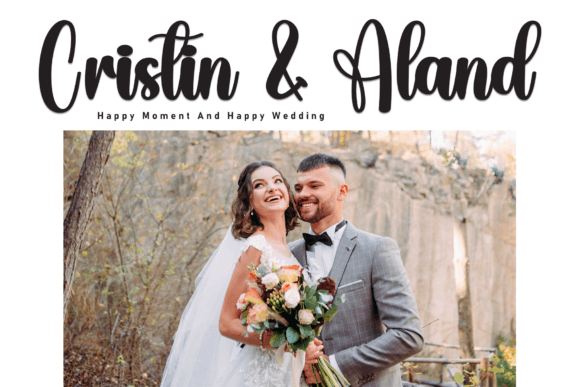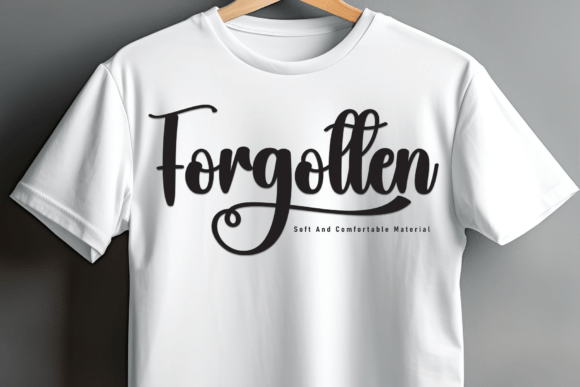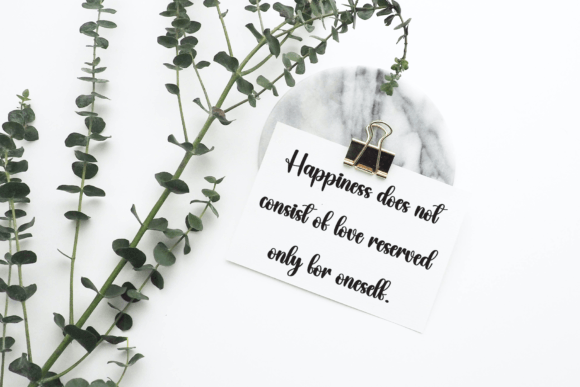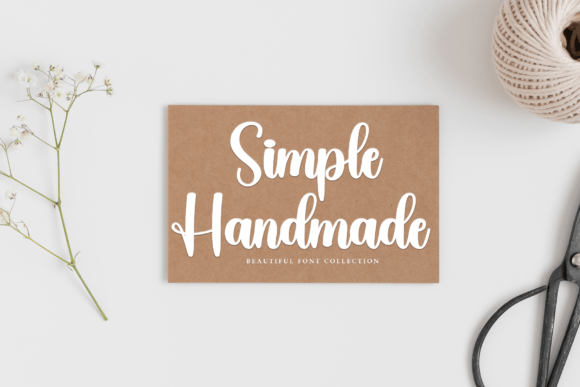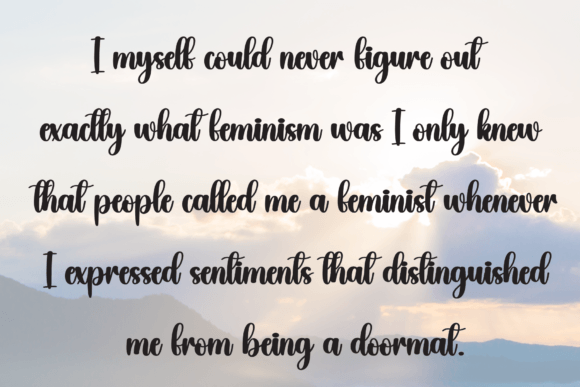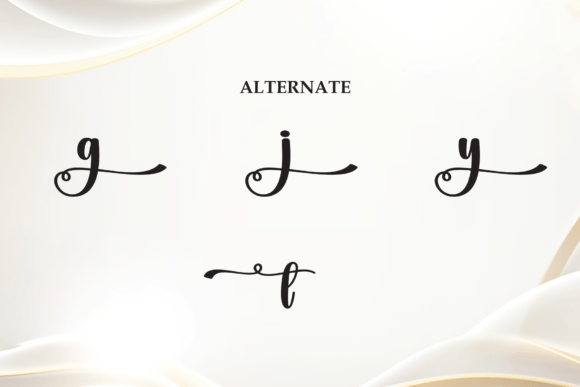
Elegantly Font: The Sweet and Friendly Handwritten Font for Your Design Needs
Are you a designer or crafter looking for a font that can add a touch of elegance and friendliness to your projects? Look no further than Elegantly Font! This beautiful handwritten font is perfect for a wide range of designs, from wedding invitations and greeting cards to branding and packaging. In this article, we’ll take a closer look at Elegantly Font and explore its features, benefits, and uses.
What is Elegantly Font?
Elegantly Font is a sweet and friendly handwritten font that is designed to add a personal touch to your designs. Its natural and unique style makes it incredibly fitting to a large pool of designs, from formal to informal, and everything in between. The font is perfect for designers and crafters who want to create beautiful and eye-catching projects that stand out from the crowd.
Features of Elegantly Font
Elegantly Font has several features that make it a great choice for designers and crafters. Some of its key features include:
- Handwritten style: Elegantly Font has a beautiful handwritten style that is perfect for adding a personal touch to your designs.
- Natural and unique: The font has a natural and unique style that makes it incredibly fitting to a wide range of designs.
- Elegant and friendly: Elegantly Font is both elegant and friendly, making it perfect for designs that require a touch of sophistication and approachability.
- Versatile: The font is versatile and can be used for a wide range of designs, from formal to informal.
Benefits of Using Elegantly Font
There are several benefits to using Elegantly Font in your designs. Some of the benefits include:
- Adds a personal touch: Elegantly Font adds a personal touch to your designs, making them more relatable and engaging.
- Enhances creativity: The font’s unique and natural style can enhance your creativity and inspire you to create beautiful and innovative designs.
- Perfect for a wide range of designs: Elegantly Font is perfect for a wide range of designs, from wedding invitations and greeting cards to branding and packaging.
Uses of Elegantly Font
Elegantly Font can be used for a wide range of designs, including:
- Wedding invitations: The font is perfect for wedding invitations, adding a touch of elegance and romance to your designs.
- Greeting cards: Elegantly Font is great for greeting cards, allowing you to create beautiful and personalized cards for special occasions.
- Branding and packaging: The font can be used for branding and packaging, adding a touch of sophistication and elegance to your designs.
- Social media graphics: Elegantly Font is perfect for social media graphics, allowing you to create beautiful and eye-catching graphics that stand out from the crowd.
Tips for Using Elegantly Font
Here are some tips for using Elegantly Font in your designs:
- Use it with contrasting colors: Use Elegantly Font with contrasting colors to make your designs stand out.
- Experiment with different sizes: Experiment with different sizes of the font to create visual interest and hierarchy in your designs.
- Pair it with other fonts: Pair Elegantly Font with other fonts to create a unique and interesting combination.
- Use it consistently: Use Elegantly Font consistently throughout your design to create a cohesive and professional look.
Elegantly Font is a beautiful and versatile handwritten font that is perfect for designers and crafters. Its natural and unique style makes it incredibly fitting to a wide range of designs, from formal to informal. With its elegant and friendly style, Elegantly Font is sure to add a touch of sophistication and approachability to your designs. So why wait? Download Elegantly Font today and start creating beautiful and eye-catching designs that stand out from the crowd!